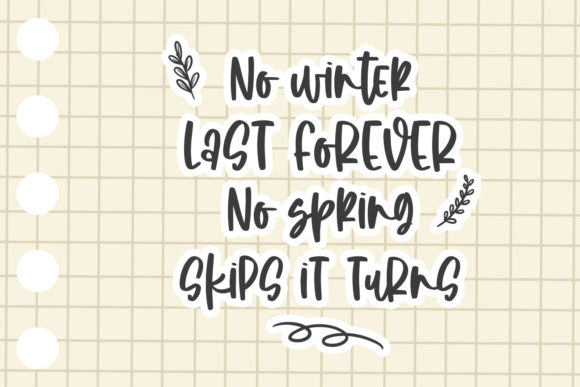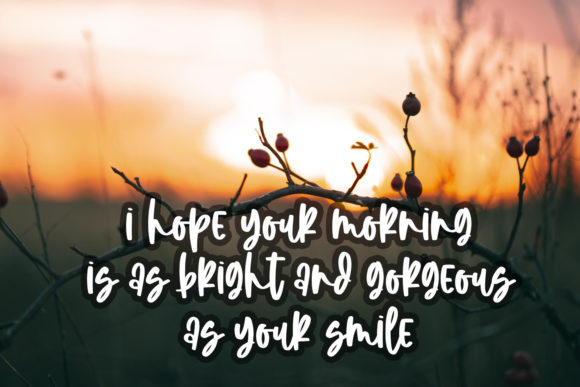
Winter End Font
db-ku.com - Script & Handwritten -- Winter End is a cute and quirky handwritten font. It will add an incredibly joyful touch to your designs. Add this beautiful font to each of your creative ideas and notice how it makes them stand out!